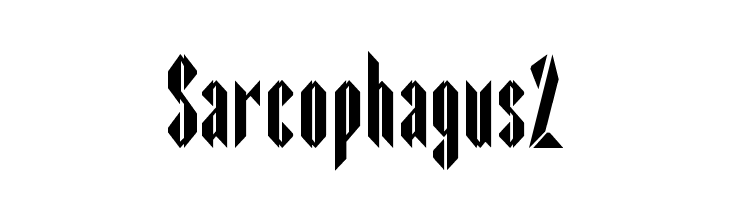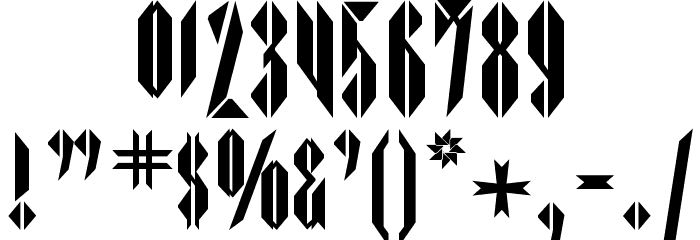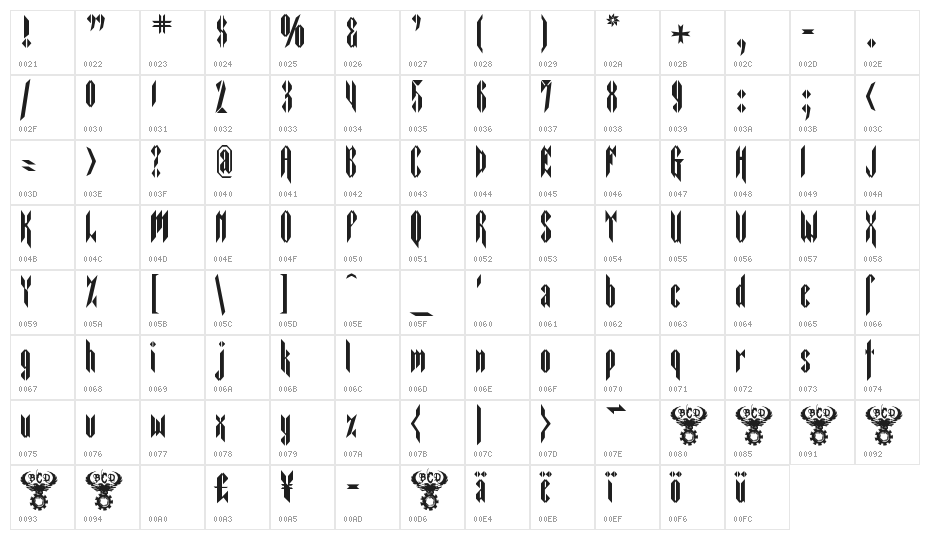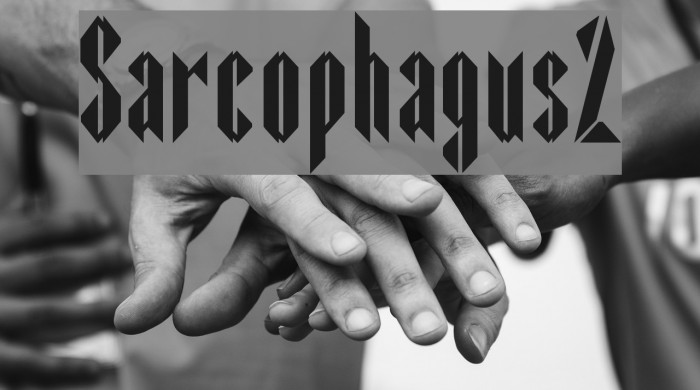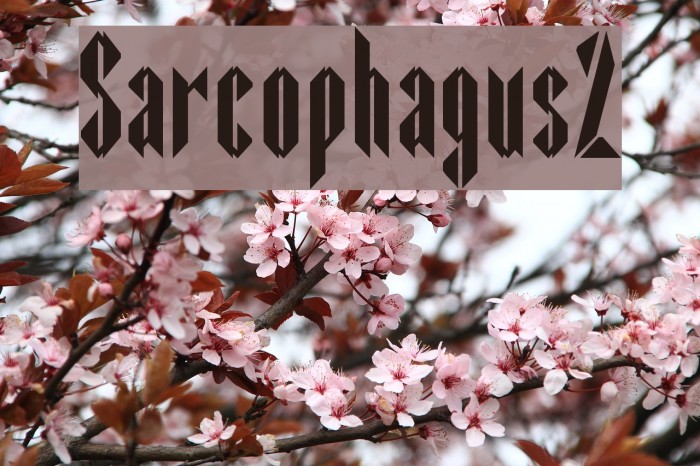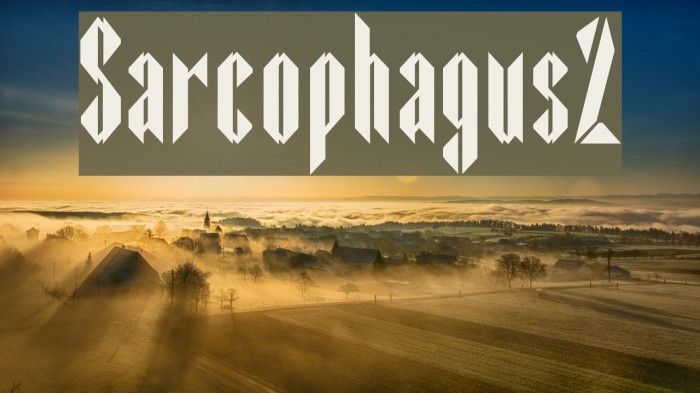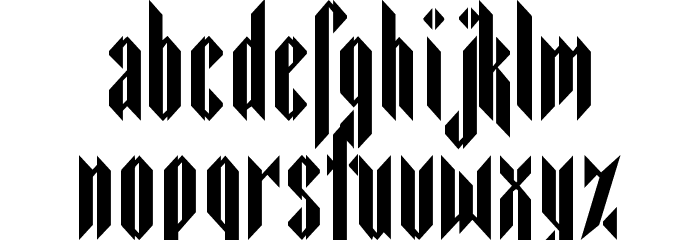
Sarcophagus2 Font
Sarcophagus2 Description
This font features a bold and striking design, characterized by sharp, angular lines and a distinct geometric style. The uppercase letters are tall and narrow, with pointed serifs that give them a dramatic, gothic appearance. The lowercase letters maintain the same angular aesthetic, creating a cohesive look across the alphabet. Numbers and special characters follow the same design principles, ensuring consistency throughout. The font's high contrast between thick and thin strokes adds to its boldness, making it stand out in any design. Its unique style is reminiscent of medieval or gothic typefaces, yet it maintains a modern edge.
| Overall Style | Modern Gothic |
| Proposed Projects | Ideal for use in branding, posters, album covers, and any project requiring a dramatic, eye-catching typeface. |